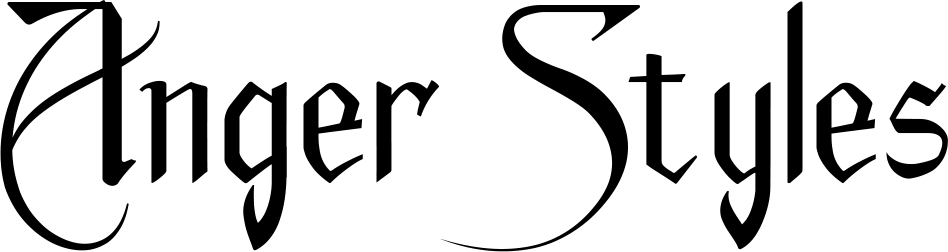
Anger Styles Font
This modern Gothic font is tremendous, it has a blend of tall, slim, jagged, and pointy characters that will draw a lot of interest to your amazing typography! Anger Styles has a modern feel but still, it has an aggressive, and risky feel but with a very desirable style.
The favorable aspect is the full set of letterforms it provides which are mixed case alphabets, numbers, and symbols. This epic fantasy font is best for books, apps, games, movies, tattoos, and more.